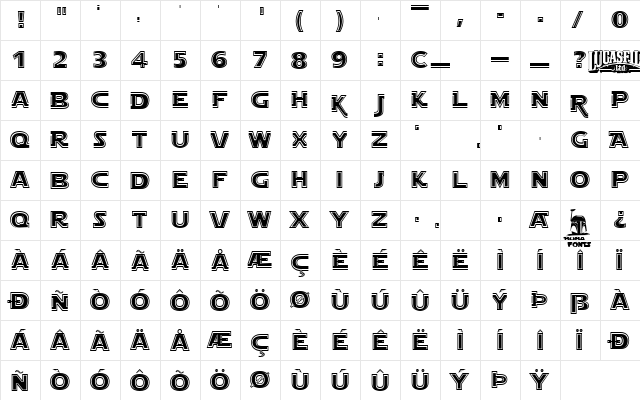
Star Jedi Outline Regular
Design Context for Star Jedi Outline Typeface
Star Jedi Outline is built around its visual character rather than neutral utility — its distinctive forms are designed to make an impression at display sizes.
Font Pairing: Pair with a clean neutral sans-serif for body copy to let Star Jedi Outline's character lead without overwhelming the composition.
Pro Tip: Treat Star Jedi Outline as the centrepiece of your typographic hierarchy. One strong heading set in a decorative face can carry an entire layout.